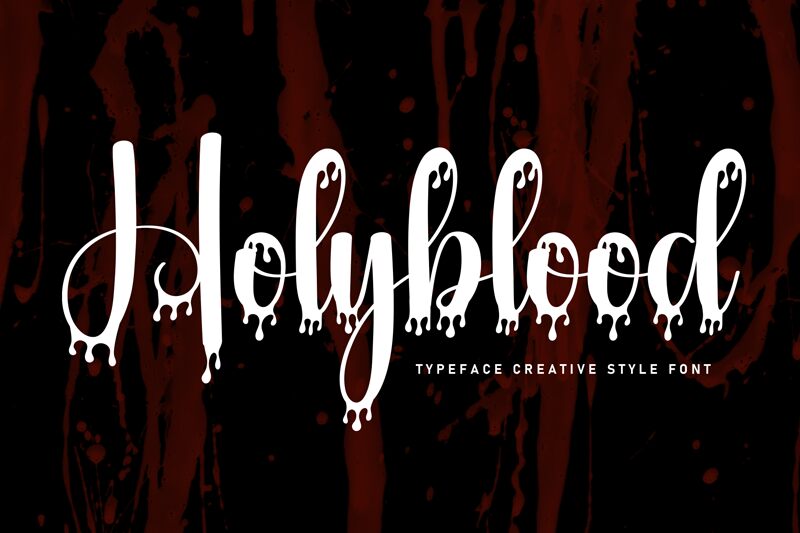
Holyblood font by Scratchones is an ornamental holiday font in a dark & eerie aesthetic. The highly dramatic free font is theatrical in its characteristic expression. It introduces playful dynamics inspired by gothic horror style with high artistic value. Its fluid form and dripping effects of the delicately thin curves make it suitable for casual, stylistic titles only.
Movie titles, book covers, posters, logos, or advertising campaigns are some of the fields of this font’s applicability. The dark aesthetic feel of this font allows for more obvious applications of the font in horror or goth-related designs.